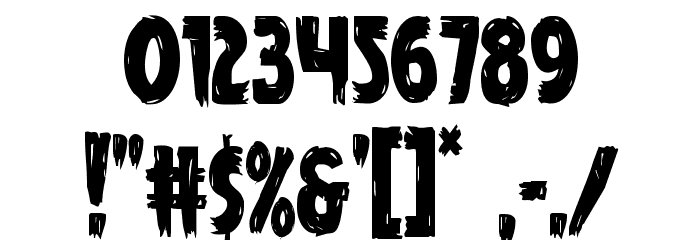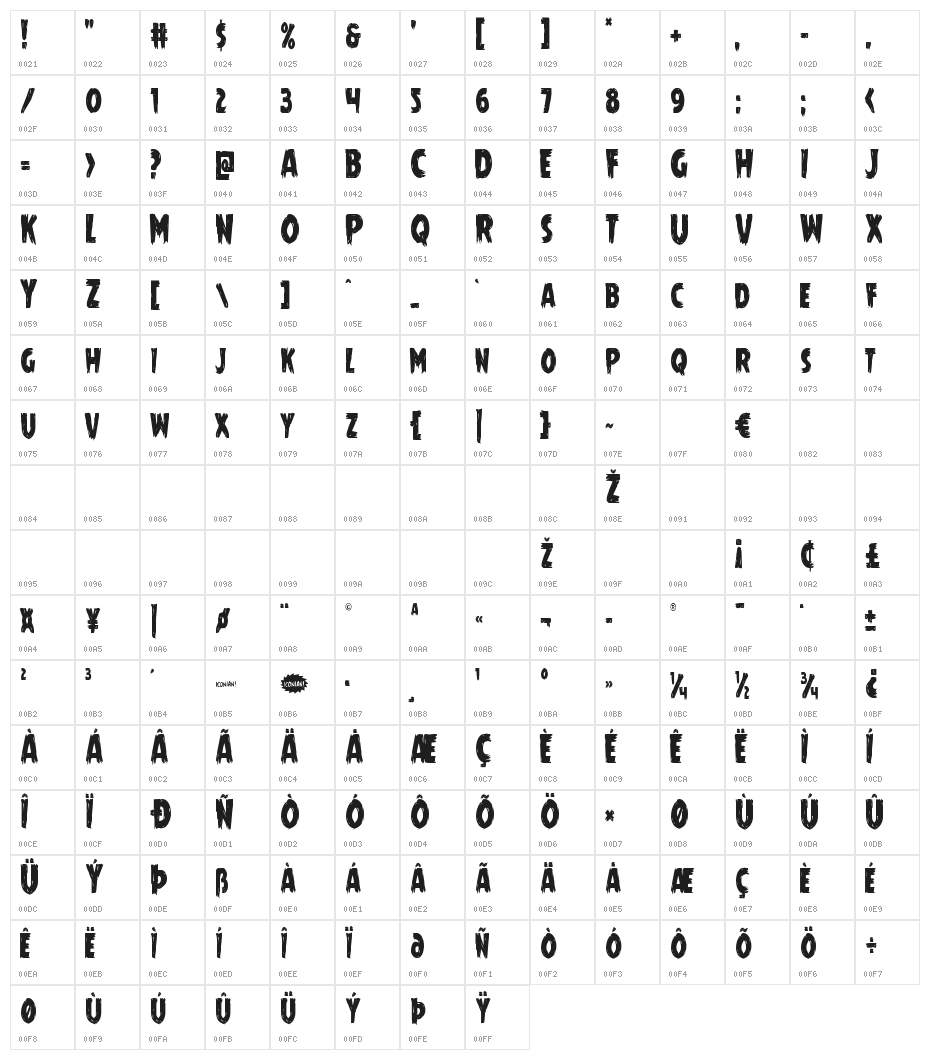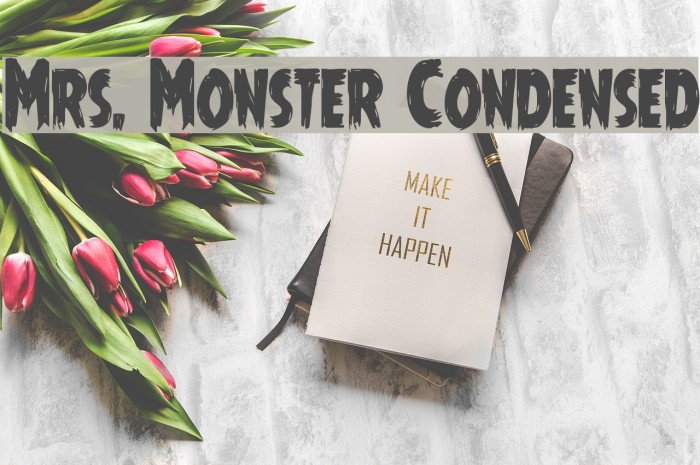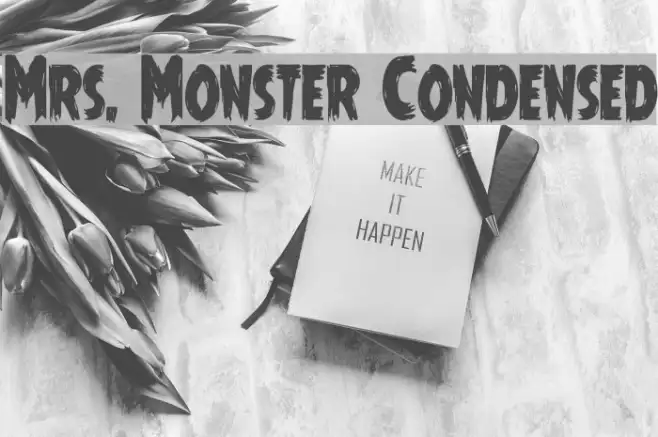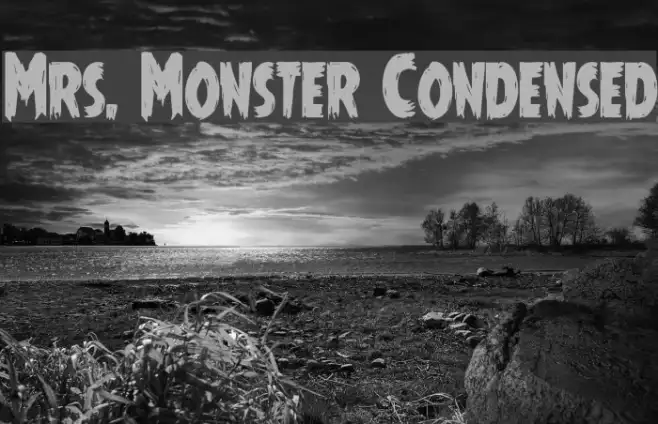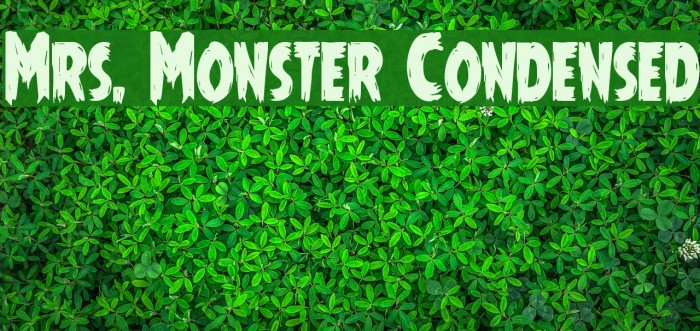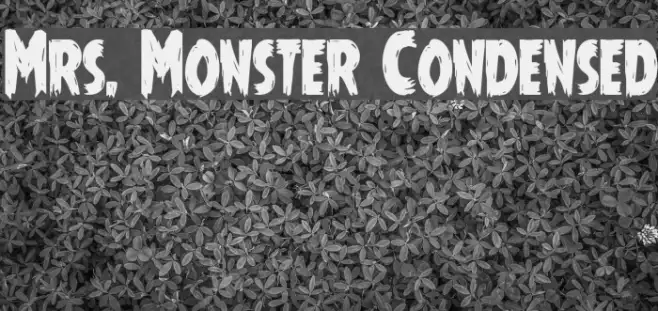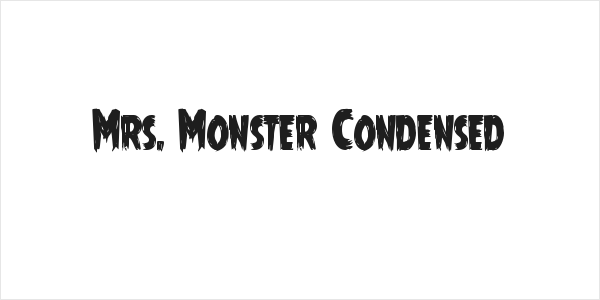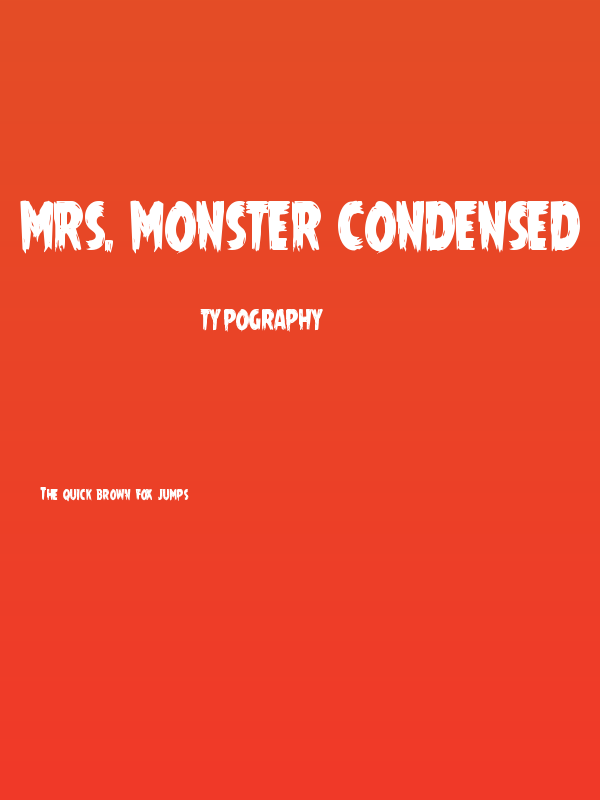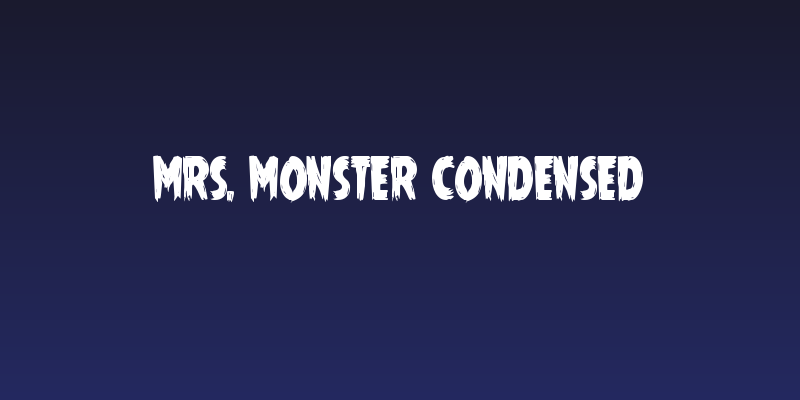
Mrs. Monster Condensed Font
Mrs. Monster Condensed Description
This font features a bold and dramatic style with jagged, irregular edges that give it a distressed, monstrous appearance. The characters are tightly condensed, enhancing the intensity and impact of the design. Each letter appears to be torn or clawed, creating a sense of movement and chaos. The uppercase and lowercase letters maintain consistent height, while the numerals and special characters follow the same rugged aesthetic. This font is perfect for projects that require a strong, eye-catching display with a touch of horror or fantasy.